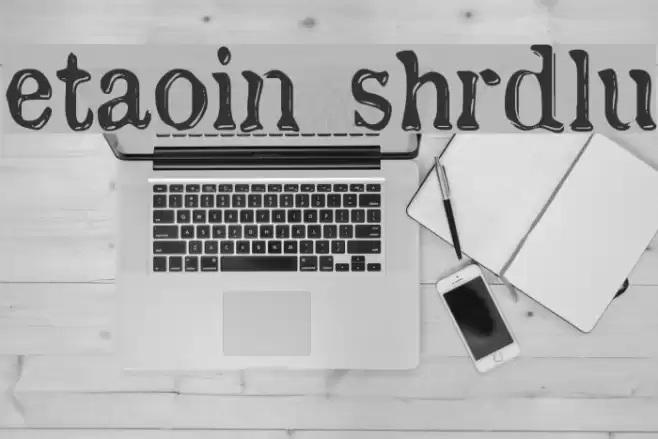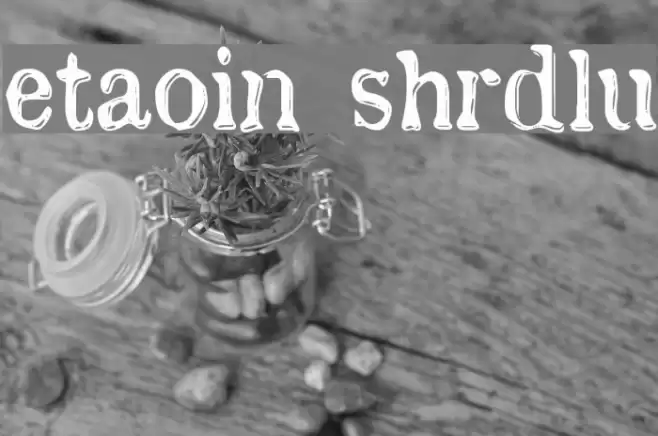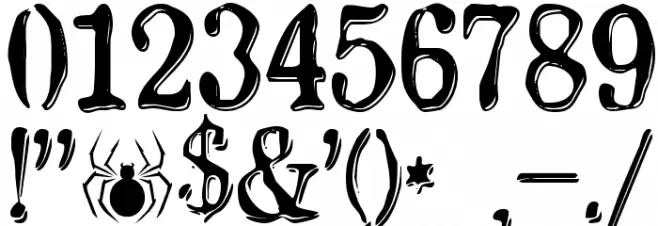
etaoin shrdlu Font
etaoin shrdlu Description
This font features a bold and decorative style with a vintage flair. The characters have a distinct, ornate appearance with thick strokes and subtle serifs, giving them a slightly whimsical and playful look. The uppercase and lowercase letters maintain a consistent design, with the uppercase being more pronounced. Numbers and special characters follow the same decorative theme, adding a unique touch to the overall aesthetic. The font's intricate details make it stand out, making it suitable for eye-catching designs.
A bold, decorative font with a vintage and whimsical style from Distorted Eroded fonts.
- Font: etaoin shrdlu
by spideraysfonts - Weight: Regular
- Proposed Projects: Ideal for Halloween-themed designs, vintage posters, creative logos, and decorative headlines.
- Overall Style: Vintage, Decorative